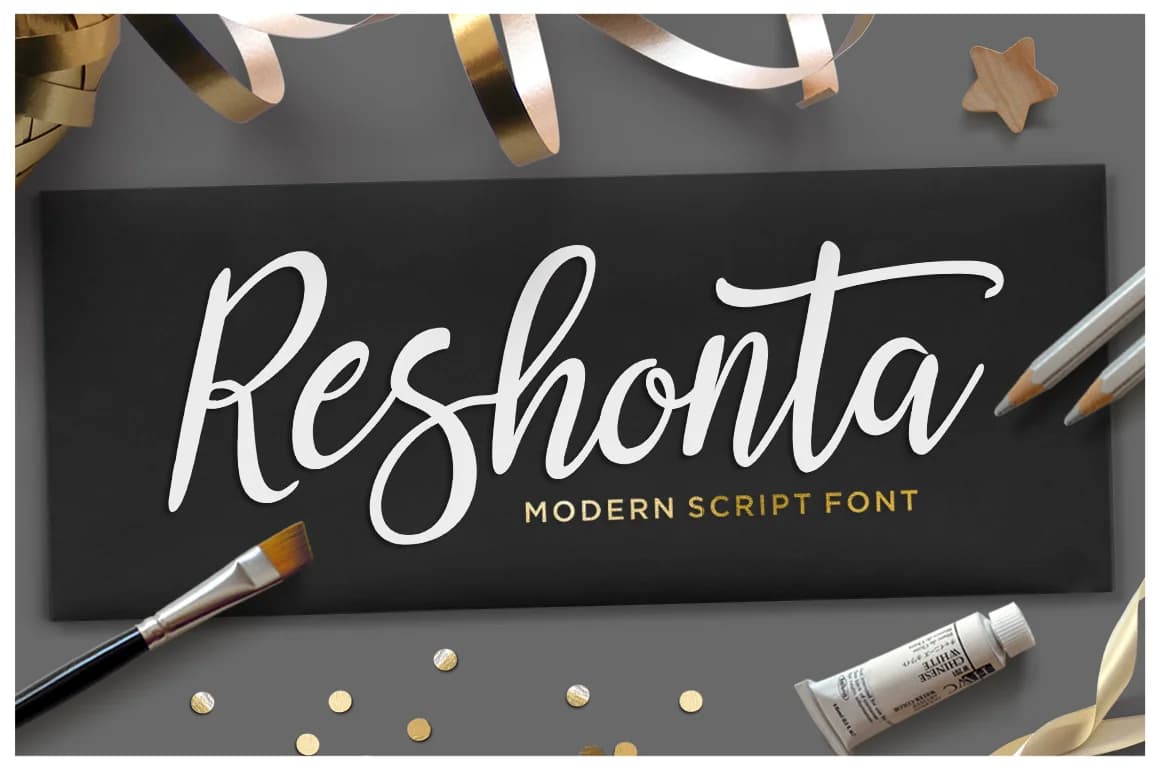
Reshonta by TRF is a bold calligraphic script that brings hand-painted artistry into the digital design world. This expressive typeface captures the organic, fluid motion of brushwork and ink while maintaining clean letterforms suitable for professional applications. The distinctive character brings personality and sophistication to projects ranging from luxury wedding stationery and save-the-date cards to custom greeting card designs and premium artisan product labeling.
The font's commanding presence makes it particularly effective for upscale branding initiatives where a handcrafted aesthetic matters. Its confident weight and expressive flourishes command visual attention without sacrificing legibility, whether you're designing elegant event invitations, creating personalized gift tags and labels, or crafting sophisticated packaging for boutique skincare brands and specialty makers. The calligraphic influences woven throughout give your work an intentional, refined appearance.
Beyond formal applications, Reshonta shines in social media graphics, scrapbooking layouts, and decorative signage requiring visual impact. The typeface strikes a balance between artistic expression and practical usability, making it versatile for both traditional print projects and contemporary digital marketing campaigns. Whether you're developing a complete brand identity or adding a single elegant touch to invitations, Reshonta delivers the sophisticated character your designs deserve. Add Reshonta Font to your Creative Fabrica collection and bring refined artistry to every project.
Reshonta Font is a script font that shines as a display or heading face. Pair it with a clean sans-serif or serif font for body text β the contrast creates a clear hierarchy while the two styles stay balanced and easy to read.
Reshonta Font
by TRF